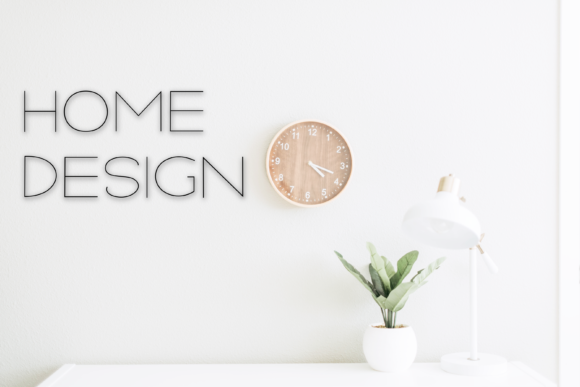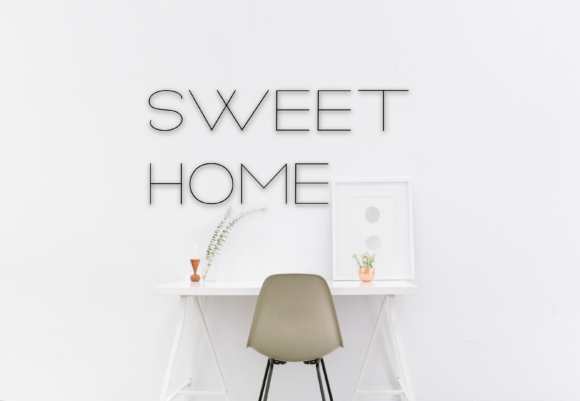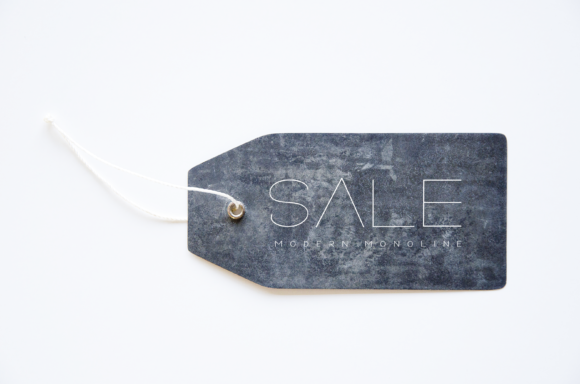
Home Minimalist Font
Home Minimalist is a simple and thin lettered sans serif font. It can easily be matched to an incredibly large set of projects, so add it to your creative ideas and notice how it makes them stand out!